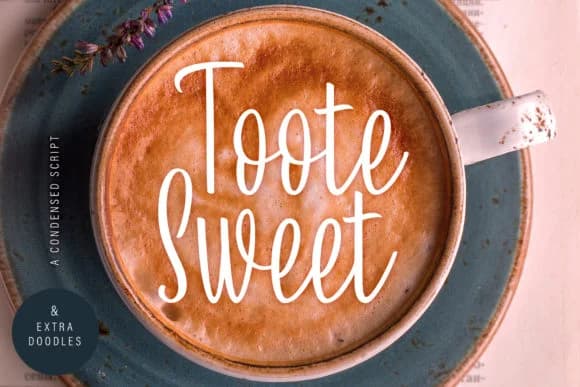
1 / 6About Toote Sweet Script Font
Toote Sweet Script Font by Ayca Atalay is an upright, condensed script that brings playful energy to projects of any scale and context. The font's lean letterforms and compact construction make it remarkably versatile, able to command attention in large displays while fitting neatly into confined layouts without compromising legibility or visual appeal. This is especially valuable for script typefaces, which often sacrifice readability when condensed. Toote Sweet proves that careful design can balance personality with practicality. Whether you're designing wedding invitation suites and stationery, crafting hand-lettered product labels for artisanal goods, creating charming DIY event announcements and signage, or developing visual branding for boutique businesses and independent creators, Toote Sweet delivers distinctive personality with restraint. Its clean lines prevent the script from feeling overwrought, making it equally suitable for contemporary minimalist designs and whimsical creative projects. The upright structure maintains strong readability even at larger sizes, a practical advantage that expands application range across print collateral, packaging design, greeting card layouts, social media graphics, and digital platforms. Toote Sweet Script Font brings character and warmth to your design work across multiple mediums. Find it on Creative Fabrica and discover how this versatile script enhances your next project with personality and polish.
- Elegant, Flowing, Toote Sweet
Toote Sweet Script Font is a script font that shines as a display or heading face. Pair it with a clean sans-serif or serif font for body text β the contrast creates a clear hierarchy while the two styles stay balanced and easy to read.
Toote Sweet Script Font